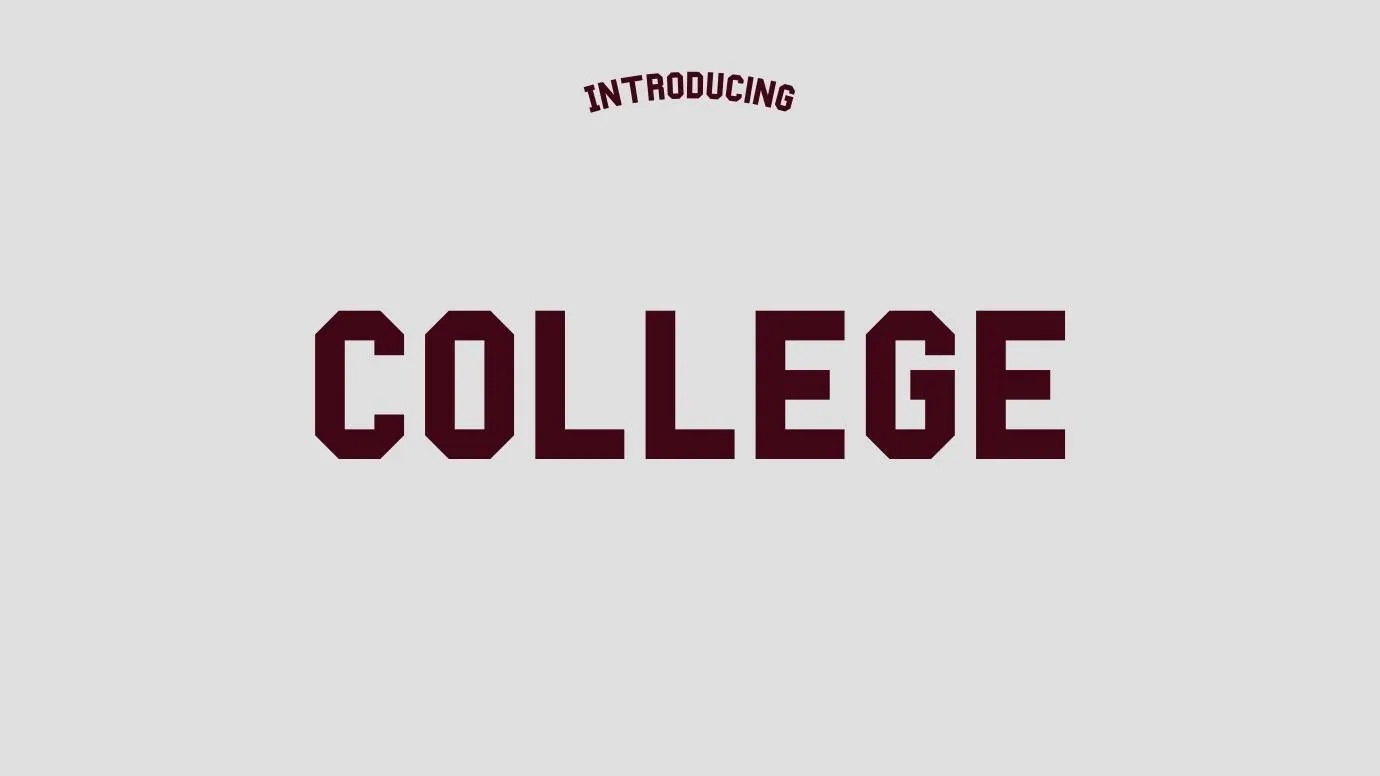
College Font Family is a stylish font belongs to the category of display family of fonts and it has bold and thick styled letters. This stylish typography was mainly designed by Matthew Welch a very popular font manufacturer.
This typeface is famous as old school font. Another similar typeface is Rooster display font and also from the display category. This typeface introduces an online tool that is perfect for colorful designs.
College Font